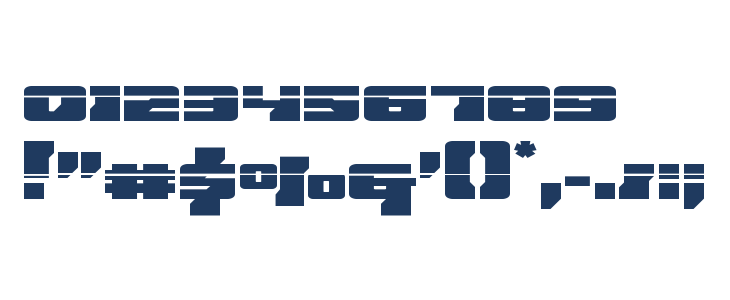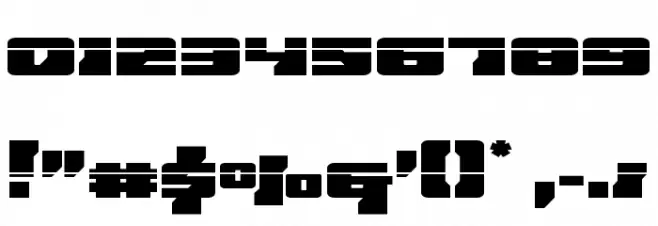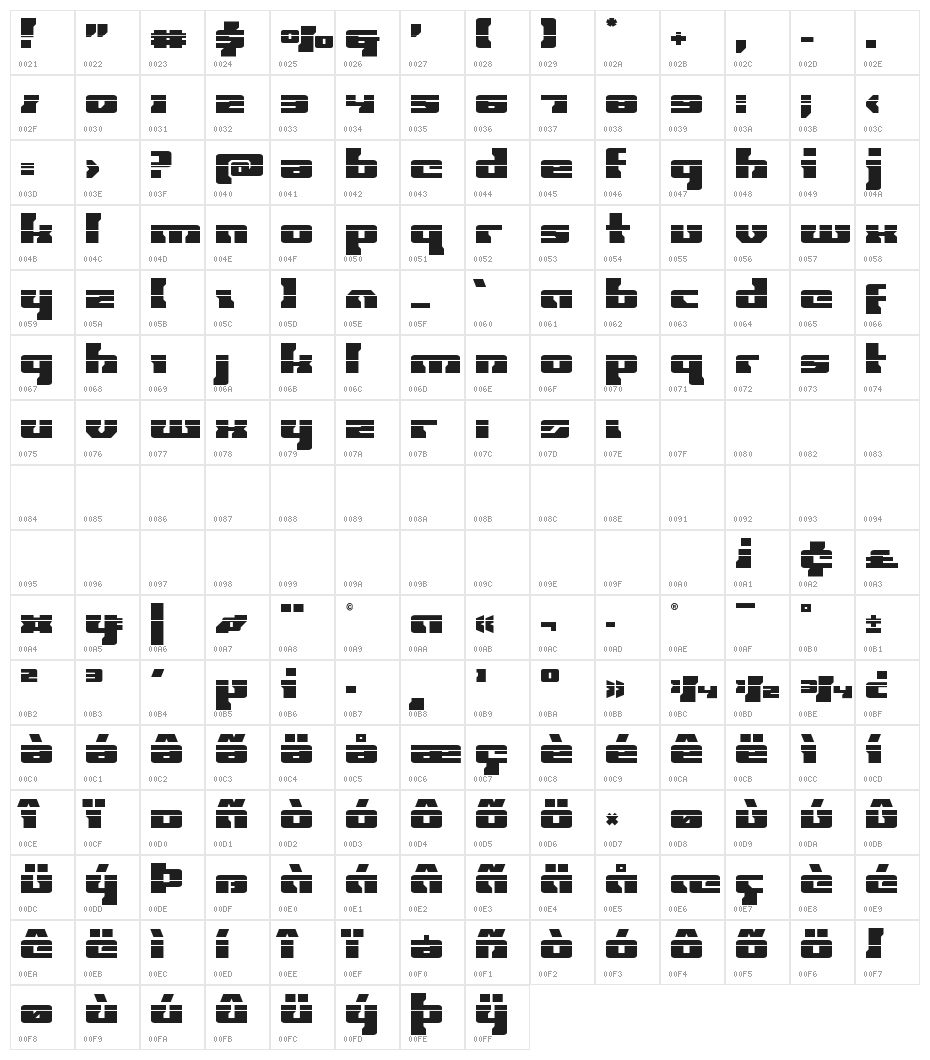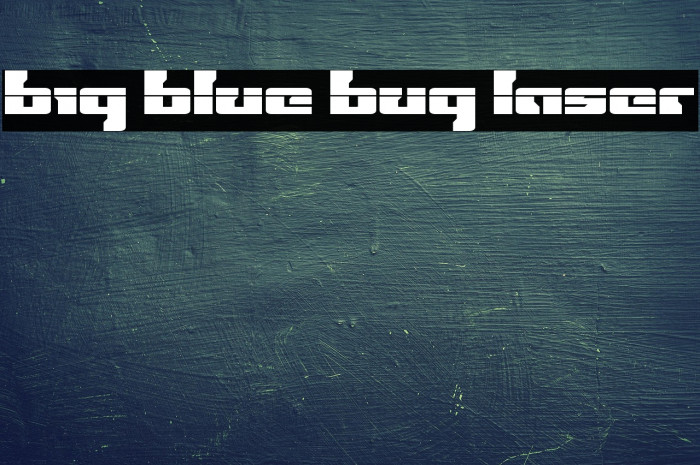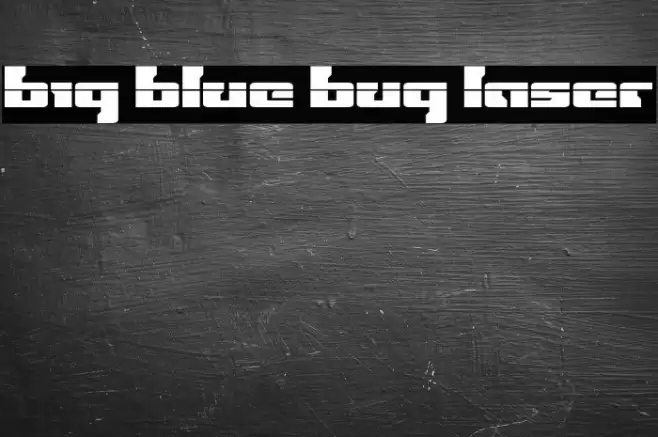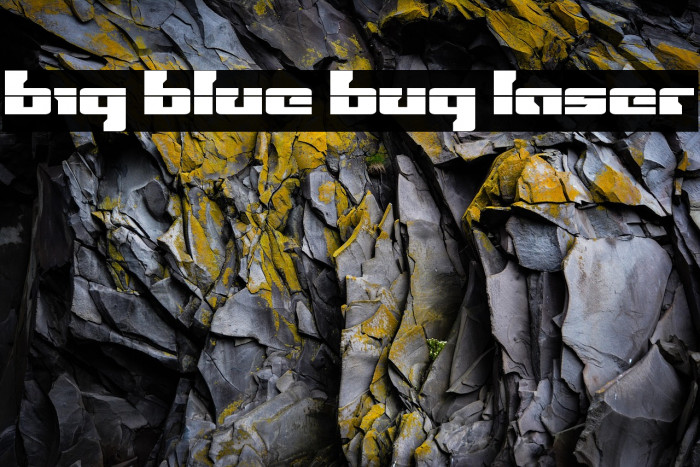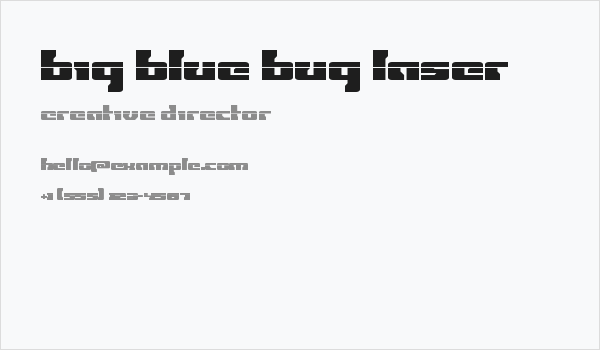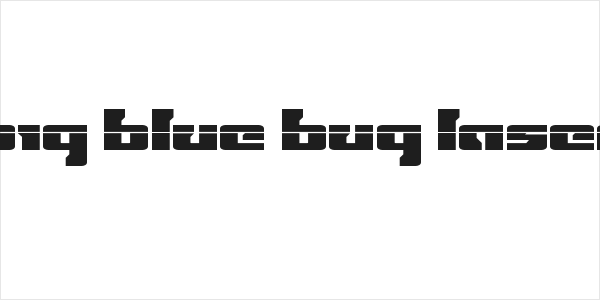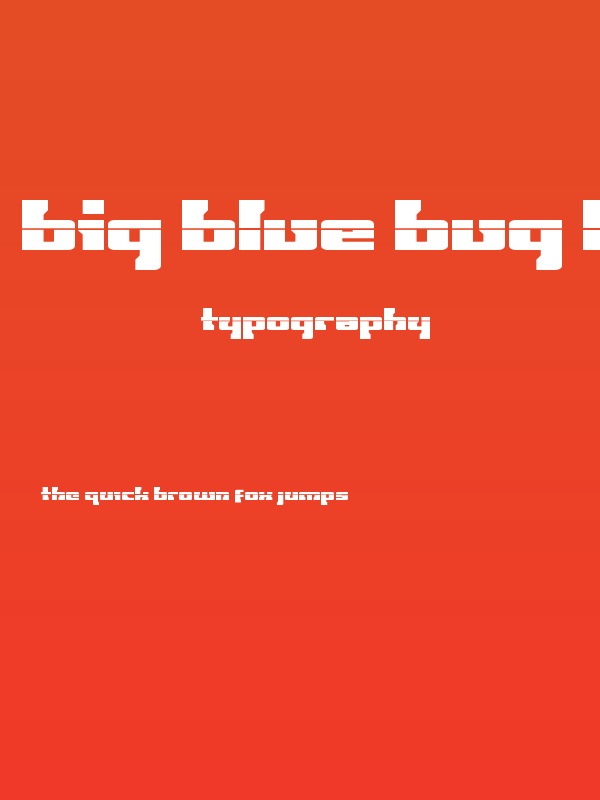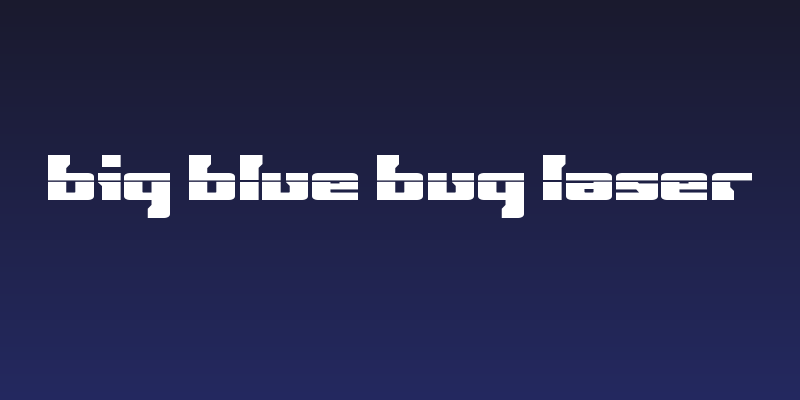
Big Blue Bug Laser Font
Big Blue Bug Laser Description
This font features a bold, geometric design with a futuristic and industrial feel. The characters are constructed with thick, block-like shapes, giving them a strong and impactful presence. The design incorporates angular cuts and sharp edges, creating a sense of movement and modernity. The uppercase and lowercase letters maintain a consistent style, while the numbers and special characters complement the overall aesthetic. The font's unique style makes it suitable for projects that require a bold and eye-catching typeface.
| Overall Style | Futuristic, Industrial |
| Proposed Projects | Ideal for sci-fi themed posters, technology branding, video game titles, and futuristic design projects. |